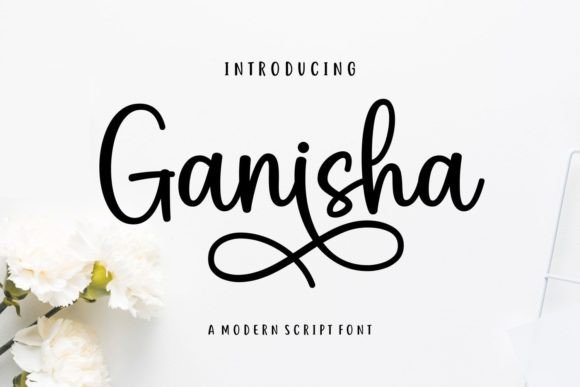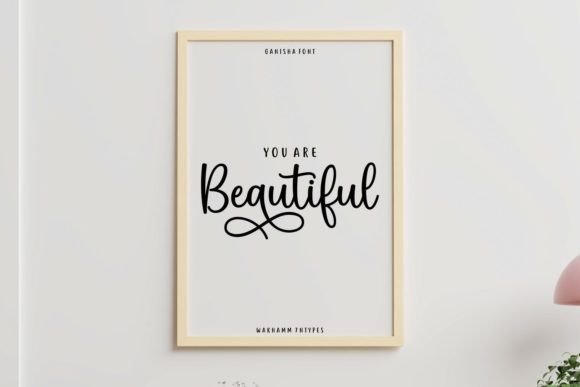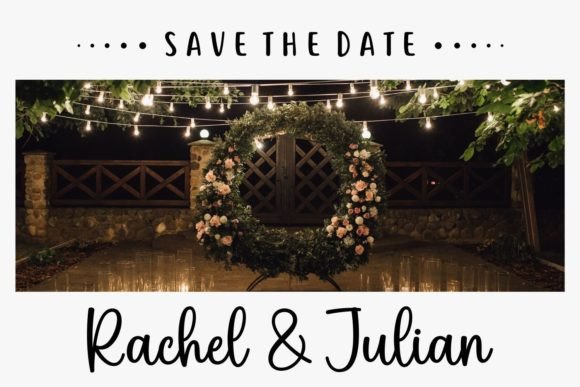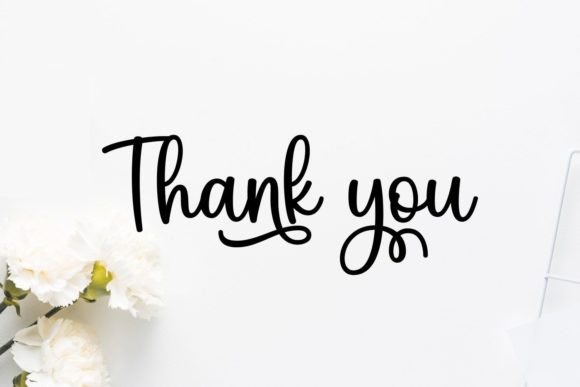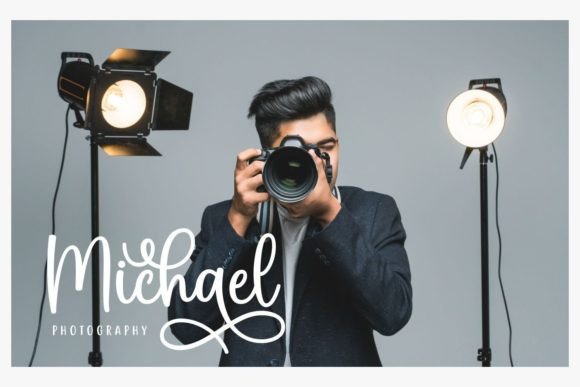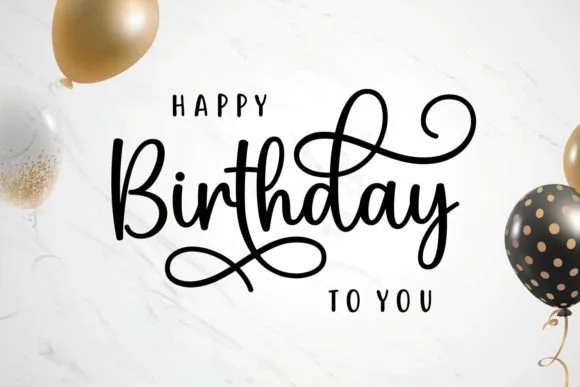
Ganisha Font
**Ganisha Font: Where Beauty Meets Modern Elegance**
Introducing “Ganisha,” a font that encapsulates beauty and modernity in every curve and line. This script font adds a touch of personality to your design projects, elevating them with elegance and charm. Whether you’re working on invitations, branding, quotes, or greeting cards, “Ganisha” becomes the perfect choice to infuse sophistication into your creative endeavors.
At the heart of “Ganisha” lies a beauty that transcends the ordinary. The font’s modern script style is crafted with precision, resulting in an aesthetic that is both timeless and contemporary. This font is not just a typeface; it’s a design asset that brings an air of elegance to your projects.
The versatility of “Ganisha” shines through in its adaptability to various design contexts. Picture it gracing elegant invitations, adding a refined touch to branding materials, or becoming the signature font for quotes that demand attention. This font becomes a versatile companion that complements the essence of your creative vision.
The inclusion of glyphs and swashes, made easily accessible through PUA encoding, enhances the font’s expressive potential. This feature allows you to customize and experiment with different character combinations, ensuring that your typography aligns perfectly with the uniqueness of your projects.
Designed for modern elegance, “Ganisha” becomes more than just a font; it’s a statement piece that adds a layer of sophistication to your designs. Its beauty lies in its ability to convey a sense of style that is both classic and contemporary. Embrace “Ganisha,” and watch as every letter becomes a brushstroke in the canvas of modern elegance, leaving an indelible mark of beauty on your design journey.